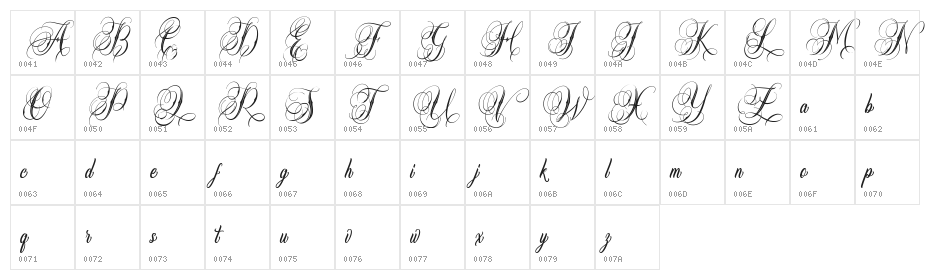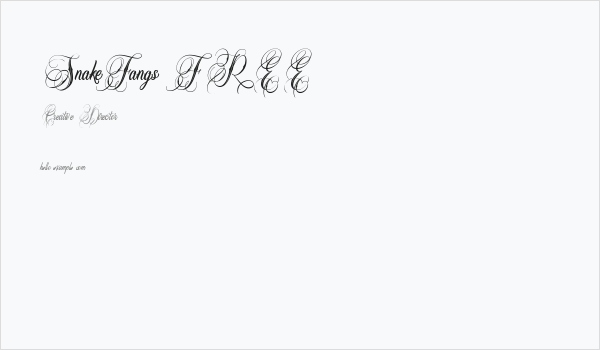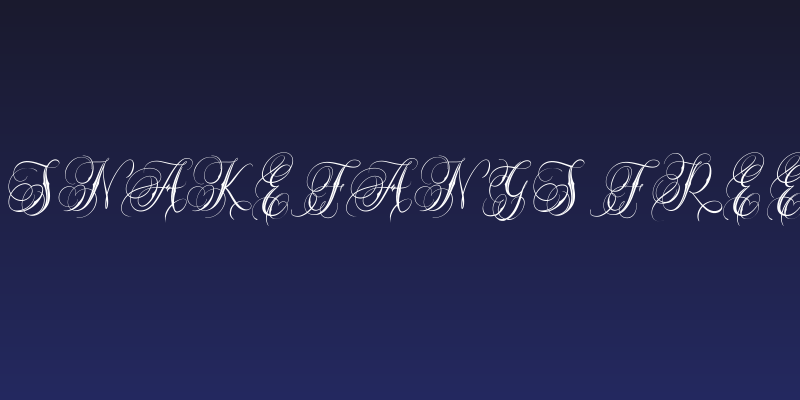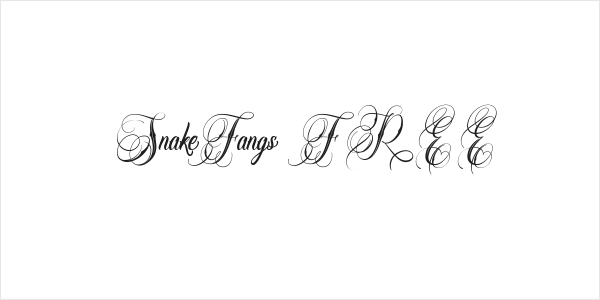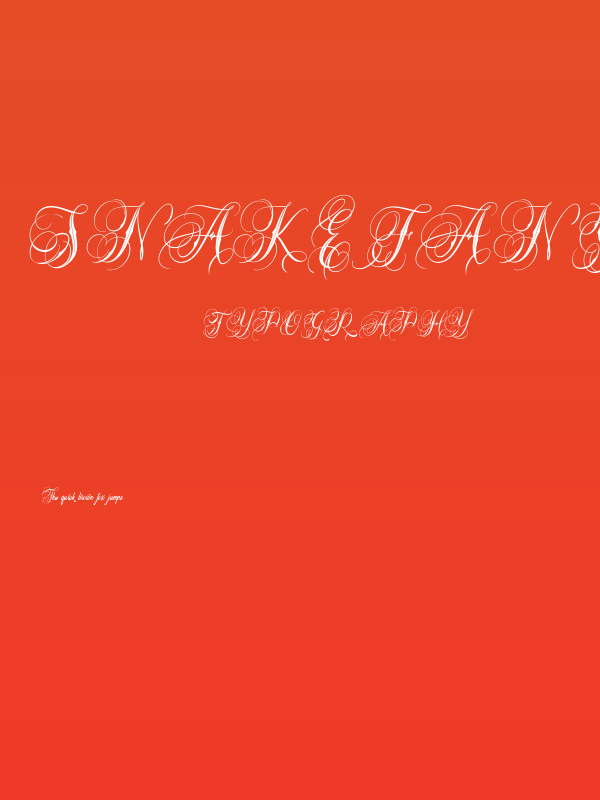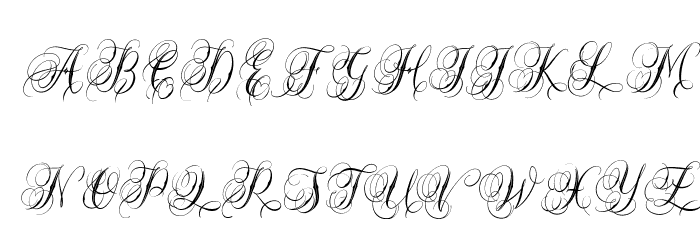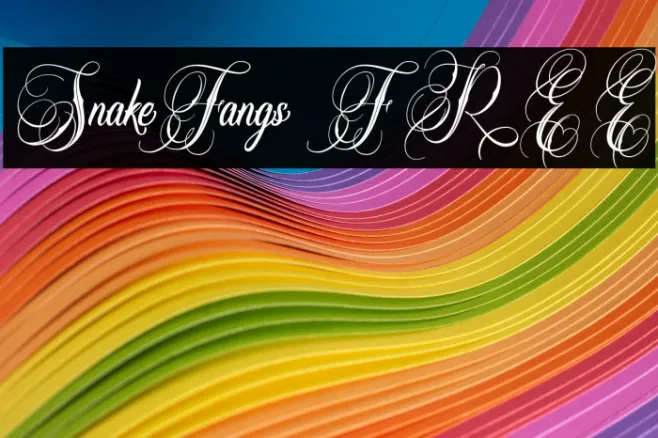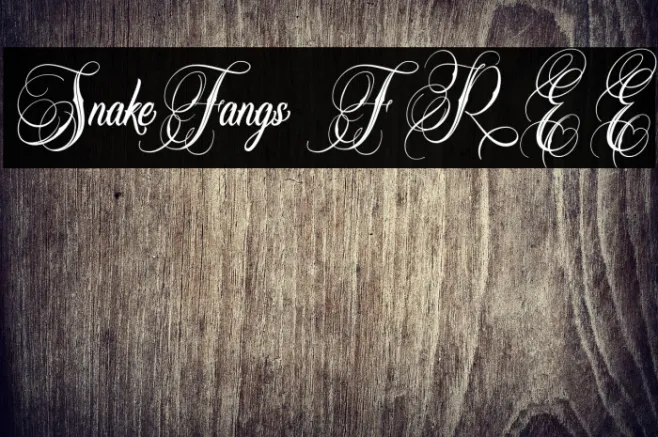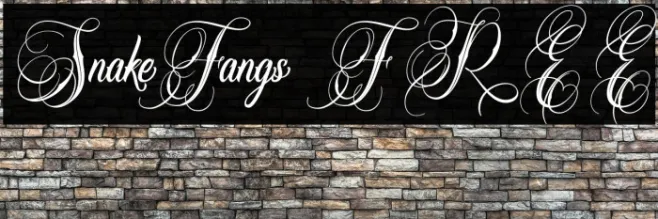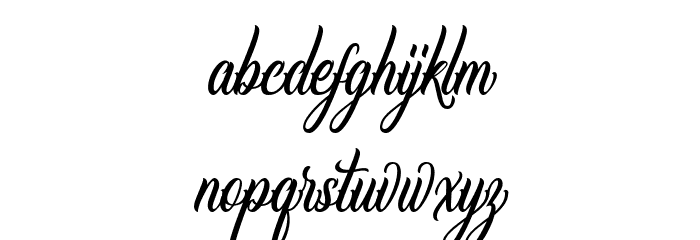
SnakeFangs FREE Font
SnakeFangs FREE Description
This font features an elaborate and ornate design, characterized by its intricate swirls and flourishes. The uppercase letters are particularly decorative, with each character adorned with loops and curls that give it a highly stylized appearance. The lowercase letters maintain a more streamlined cursive style, offering a contrast to the elaborate uppercase. This font exudes elegance and sophistication, making it suitable for formal invitations, branding, and decorative purposes. The overall aesthetic is reminiscent of calligraphic styles, with a modern twist that adds a unique flair.
| Proposed Projects | Ideal for wedding invitations, luxury branding, decorative headings, and artistic projects. |